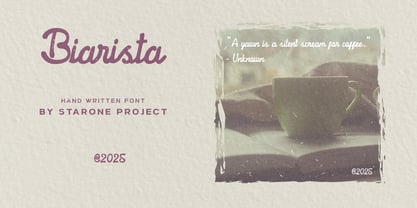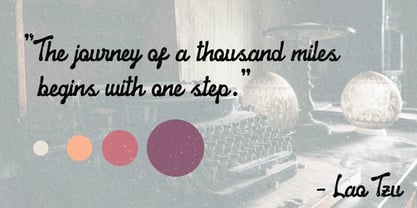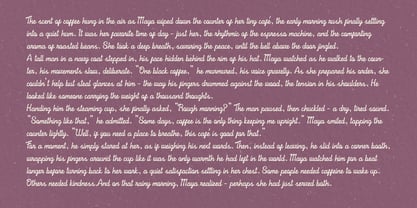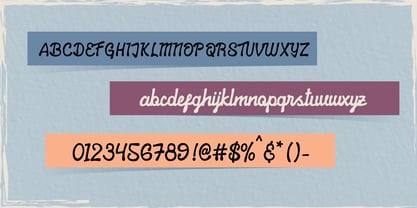
Biarista
by Starone Project
The Biarista Font Family was designed by Mohammad Teguh and published by Starone Project. Biarista contains 2 styles and family package options. More about this family
This font was created for use in various designs that incorporate script fonts, whether for classic/vintage-themed designs or more contemporary themes. Each character in this font has an organic shape.
Designers: Mohammad Teguh
Foundry: Starone Project